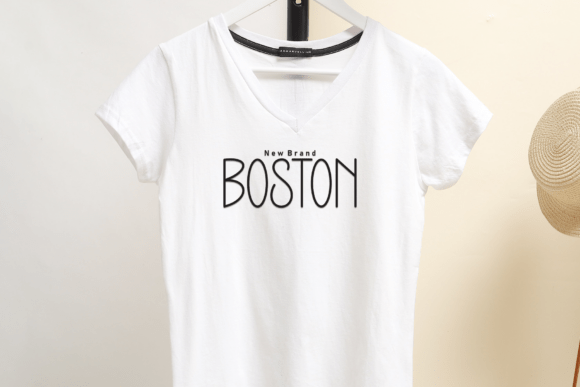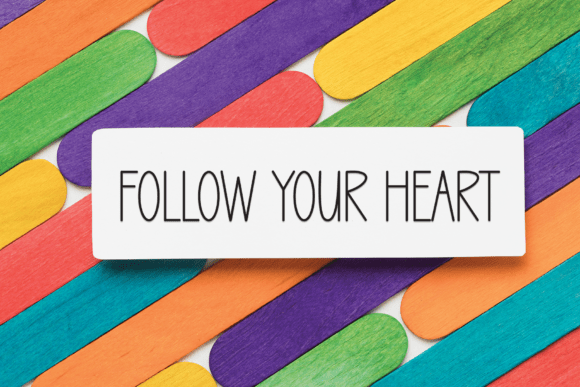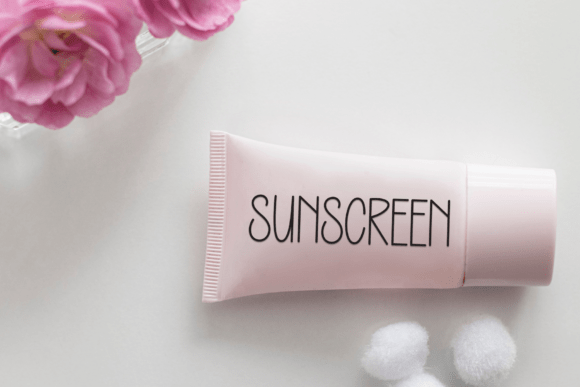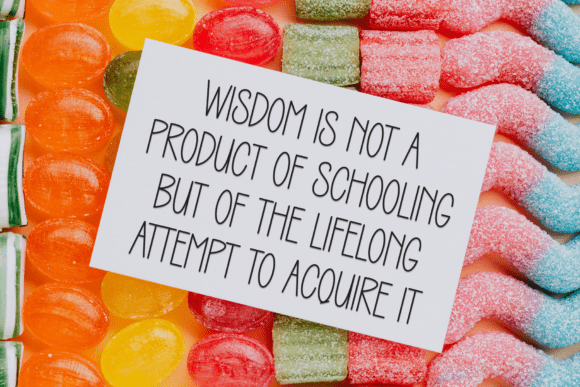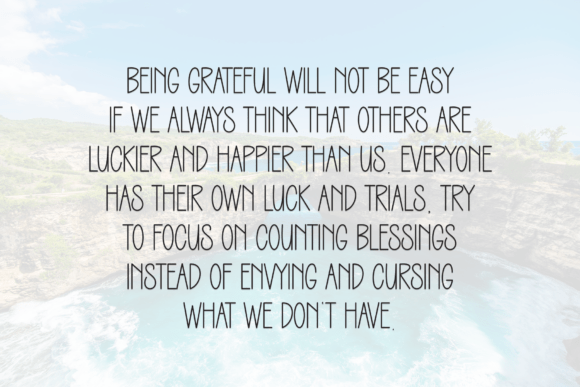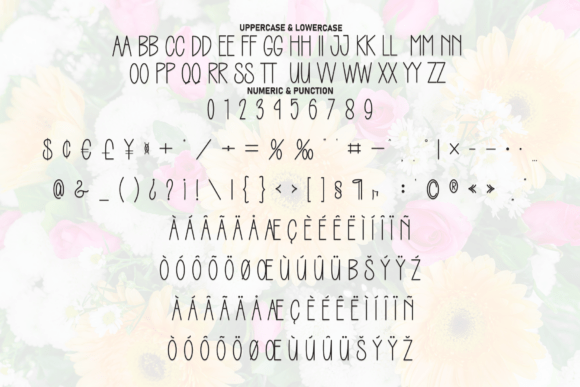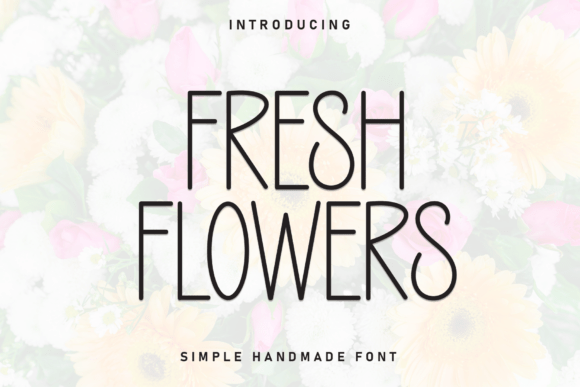
Introducing Fresh Flowers: The Perfect Font for Modern yet Laid-Back Designs
Are you tired of using fonts that are too formal or too dull for your designs? Look no further than Fresh Flowers, a neat and casual display font that blends clarity with a relaxed, approachable vibe. This beautiful font is perfect for designers and crafters who want to add a touch of personality to their projects without overwhelming the message.
Clean Lines and Friendly Letterforms
Fresh Flowers boasts clean lines and friendly letterforms that make it perfect for headlines, posters, packaging, and branding that aims to feel modern yet laid-back. The font’s balanced structure and playful energy bring a sense of approachability and warmth to any design, making it ideal for projects that require both style and readability.
Key Features of Fresh Flowers Font
- Clean and Casual Design: Fresh Flowers has a neat and casual design that makes it perfect for modern yet laid-back designs.
- Balanced Structure: The font has a balanced structure that provides clarity and readability, making it easy to read and understand.
- Playful Energy: Fresh Flowers has a playful energy that adds personality to any design, making it perfect for projects that require a touch of whimsy.
- Versatile: The font is versatile and can be used for a variety of projects, including headlines, posters, packaging, and branding.
Why Choose Fresh Flowers Font?
There are many reasons why designers and crafters should choose Fresh Flowers font for their projects. Here are a few:
- Unique and Eye-Catching: Fresh Flowers is a unique and eye-catching font that will make your designs stand out from the crowd.
- Easy to Read: The font is easy to read, even at small sizes, making it perfect for designs that require a lot of text.
- Customizable: Fresh Flowers is highly customizable, allowing you to adjust the font to fit your design needs.
- Supports Multiple Languages: The font supports multiple languages, making it perfect for international designs.
How to Use Fresh Flowers Font in Your Designs
Using Fresh Flowers font in your designs is easy. Here are a few tips to get you started:
- Pair it with Other Fonts: Fresh Flowers pairs well with other fonts, making it easy to create a unique and visually appealing design.
- Use it for Headlines: The font is perfect for headlines and titles, making it a great addition to any design.
- Add a Pop of Color: Fresh Flowers looks great with a pop of color, making it perfect for designs that require a bit of whimsy.
Fresh Flowers font is a beautiful and versatile font that is perfect for designers and crafters who want to add a touch of personality to their projects. With its clean lines, friendly letterforms, and playful energy, it’s ideal for modern yet laid-back designs. Whether you’re creating headlines, posters, packaging, or branding, Fresh Flowers is the perfect font for your next project.